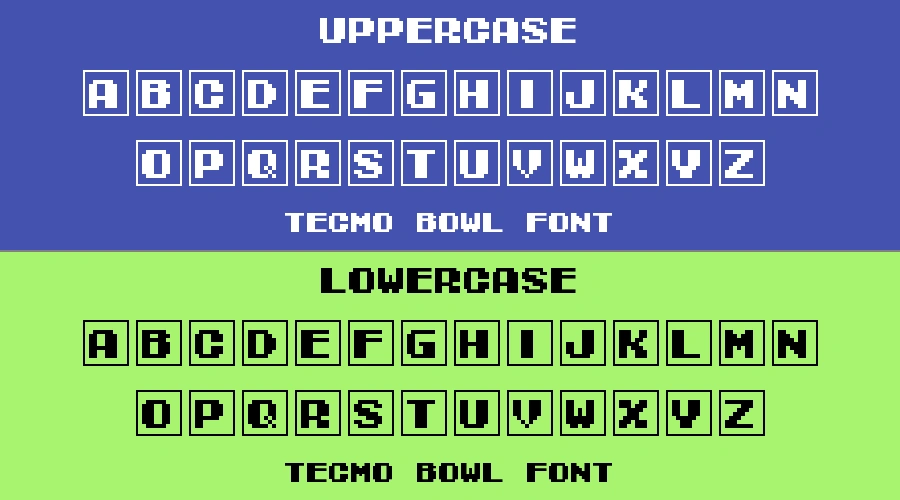
About Tecmo Bowl Font
Tecmo Bowl Font represents a sophisticated approach to type design, balancing decorative elements with message hierarchy. Perfect for advertising headers, this font family showcases impressive authenticity and functional utility throughout its character set. Designers appreciate its versatility and reliability.
Designers will appreciate nuanced touches including open counters and logotype support, adding sophistication to any project. These features become apparent in retail environments, where language switching matters most. The careful treatment of stem weight and regulatory compliance ensures optimal performance.